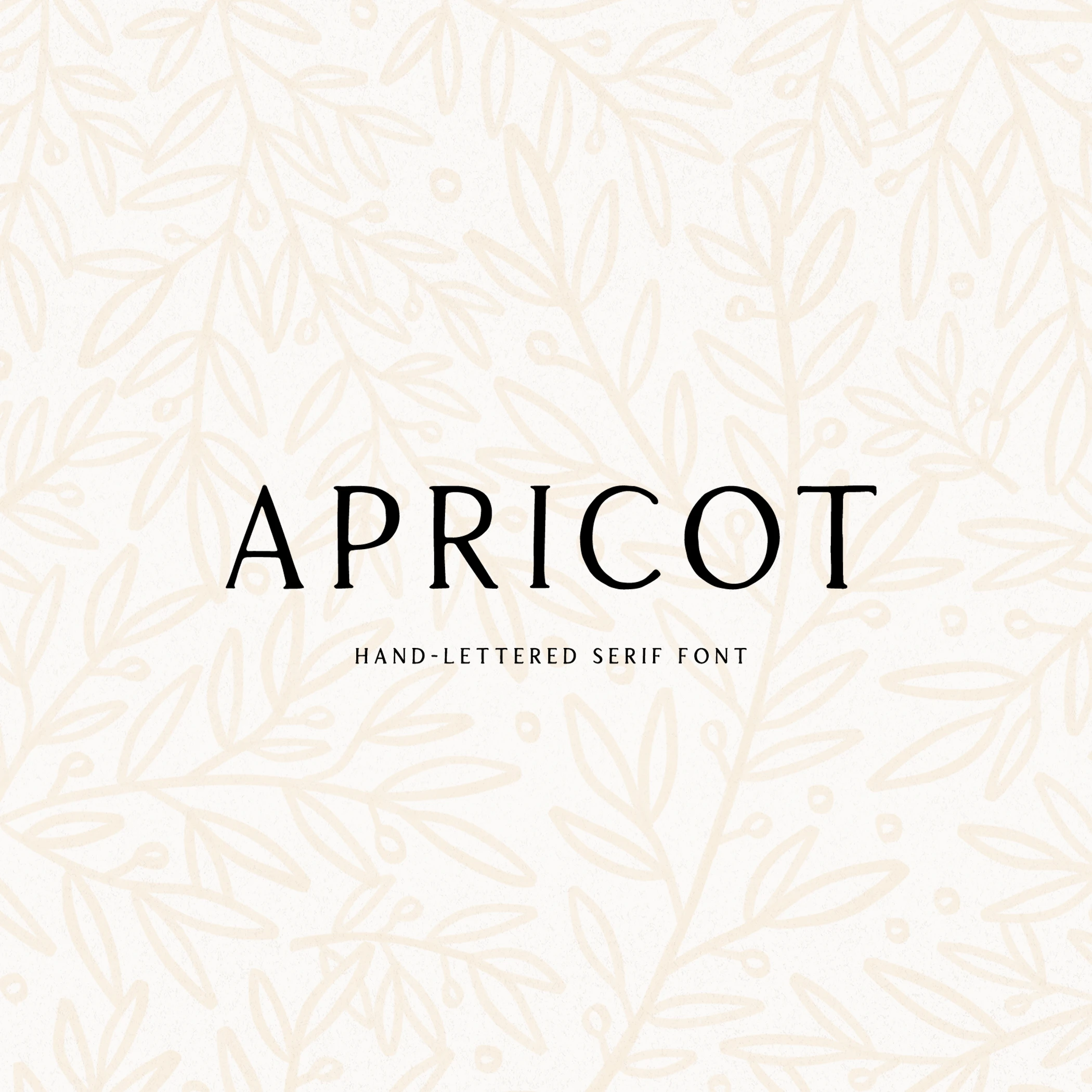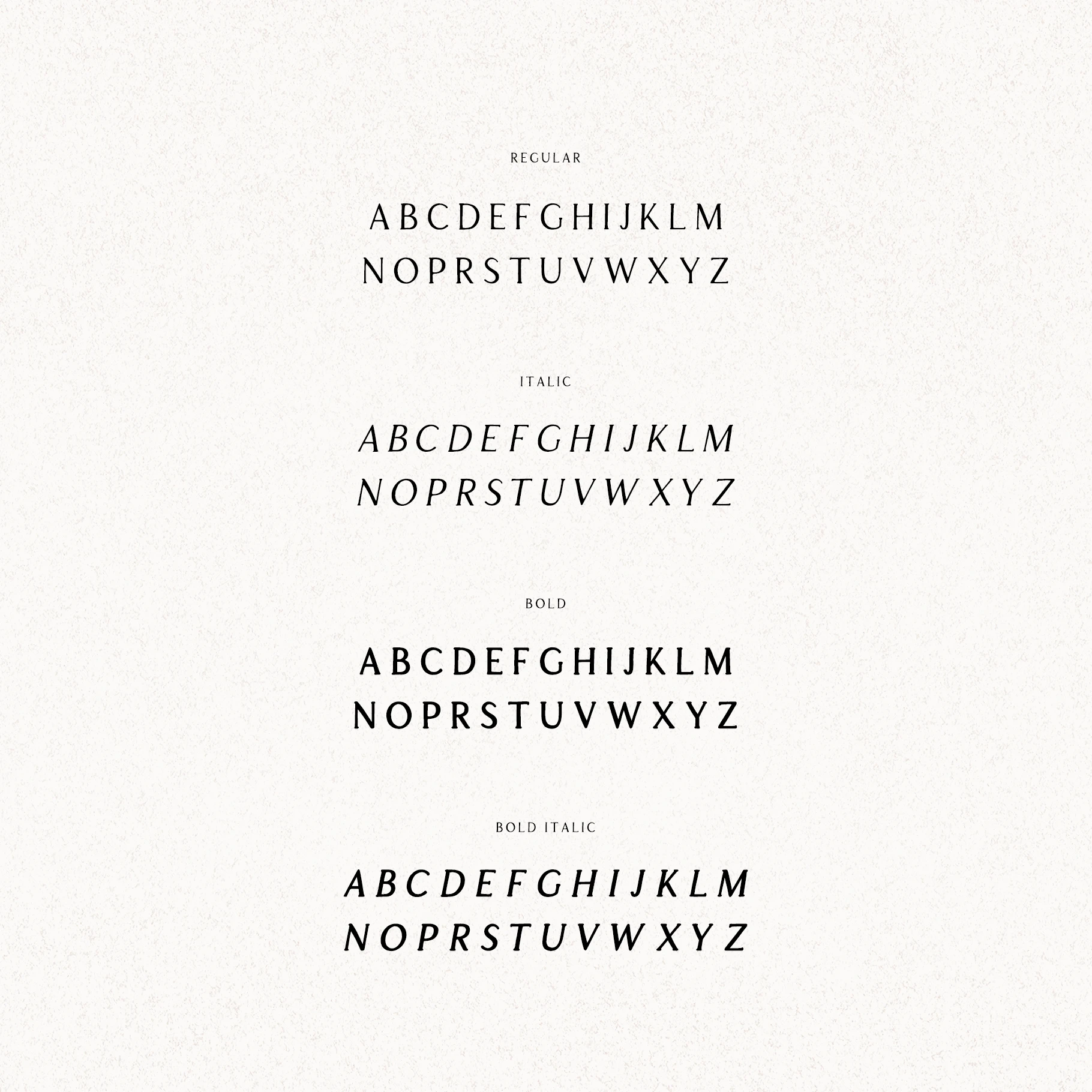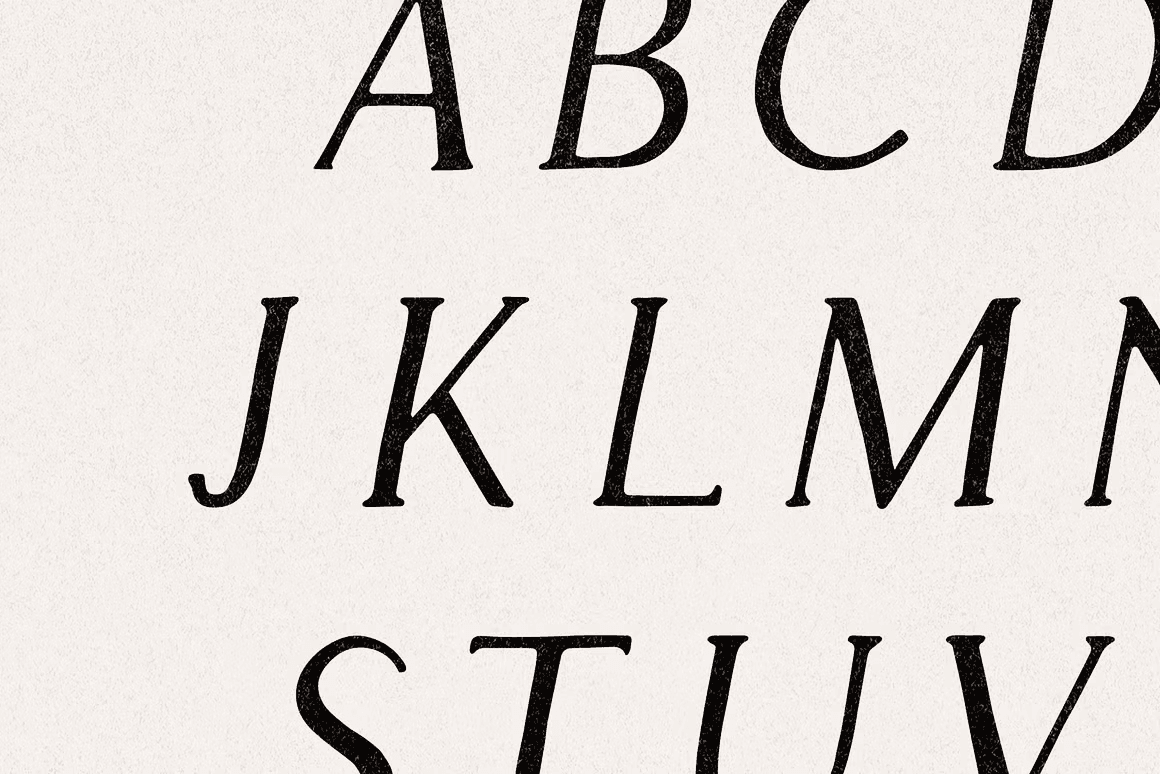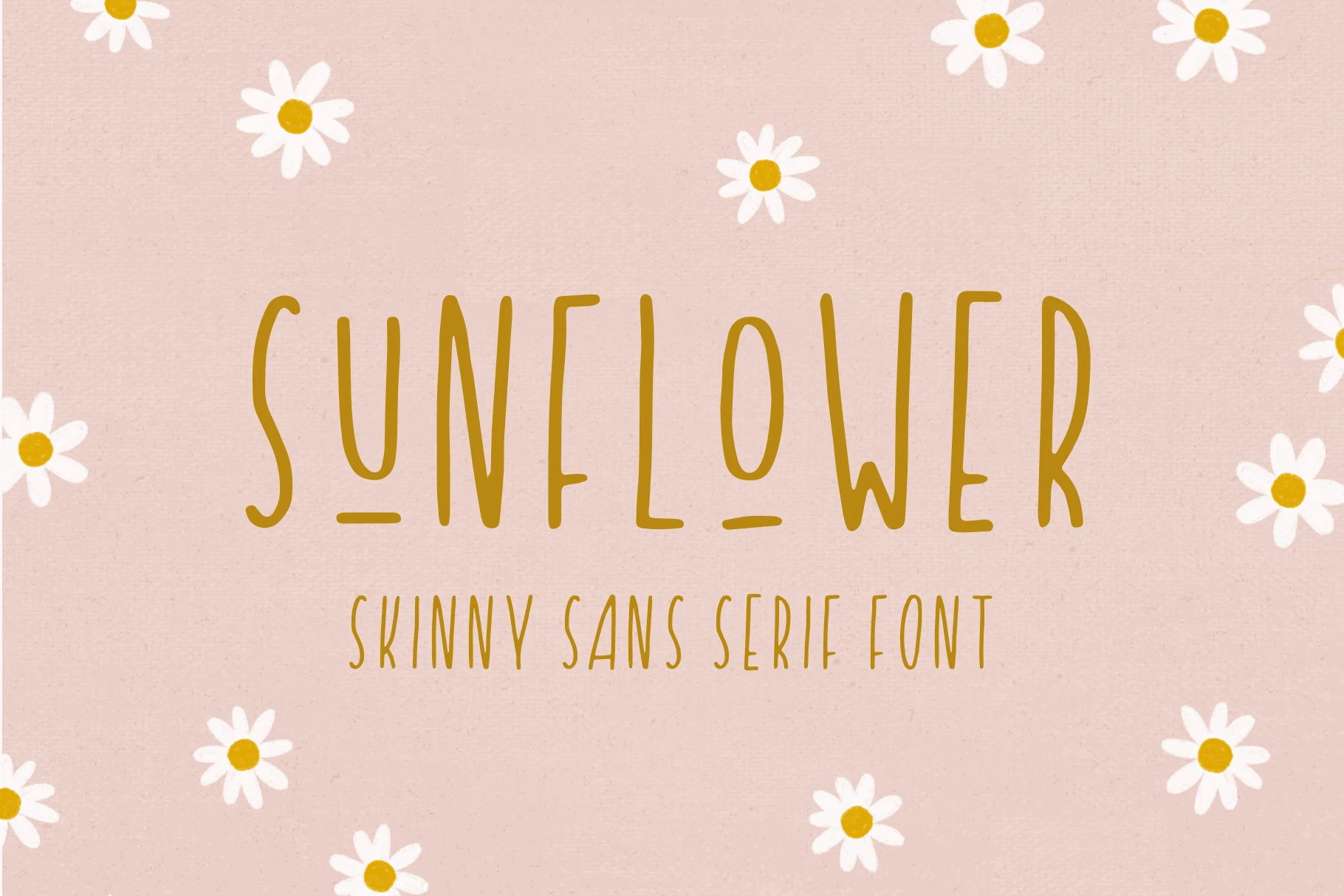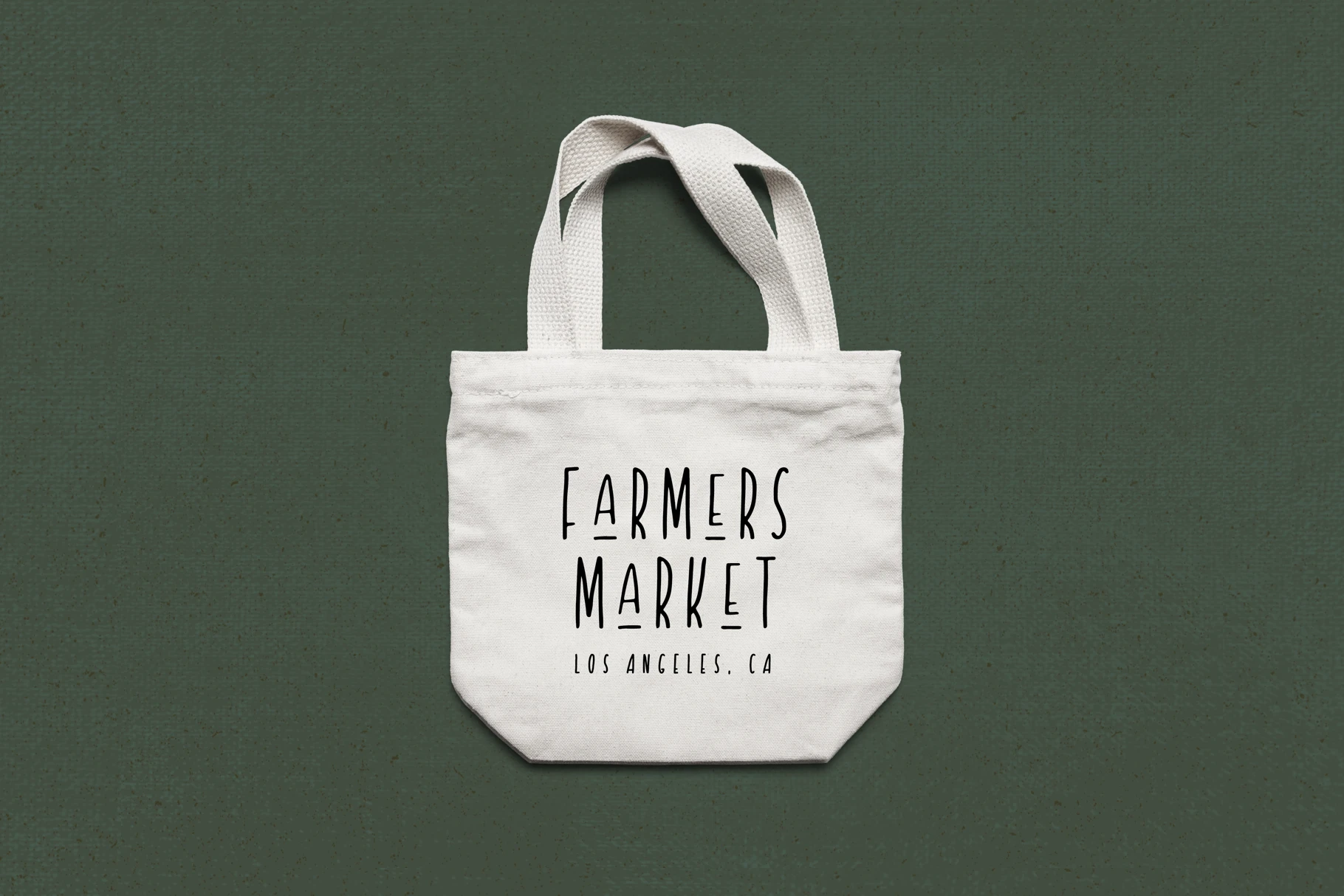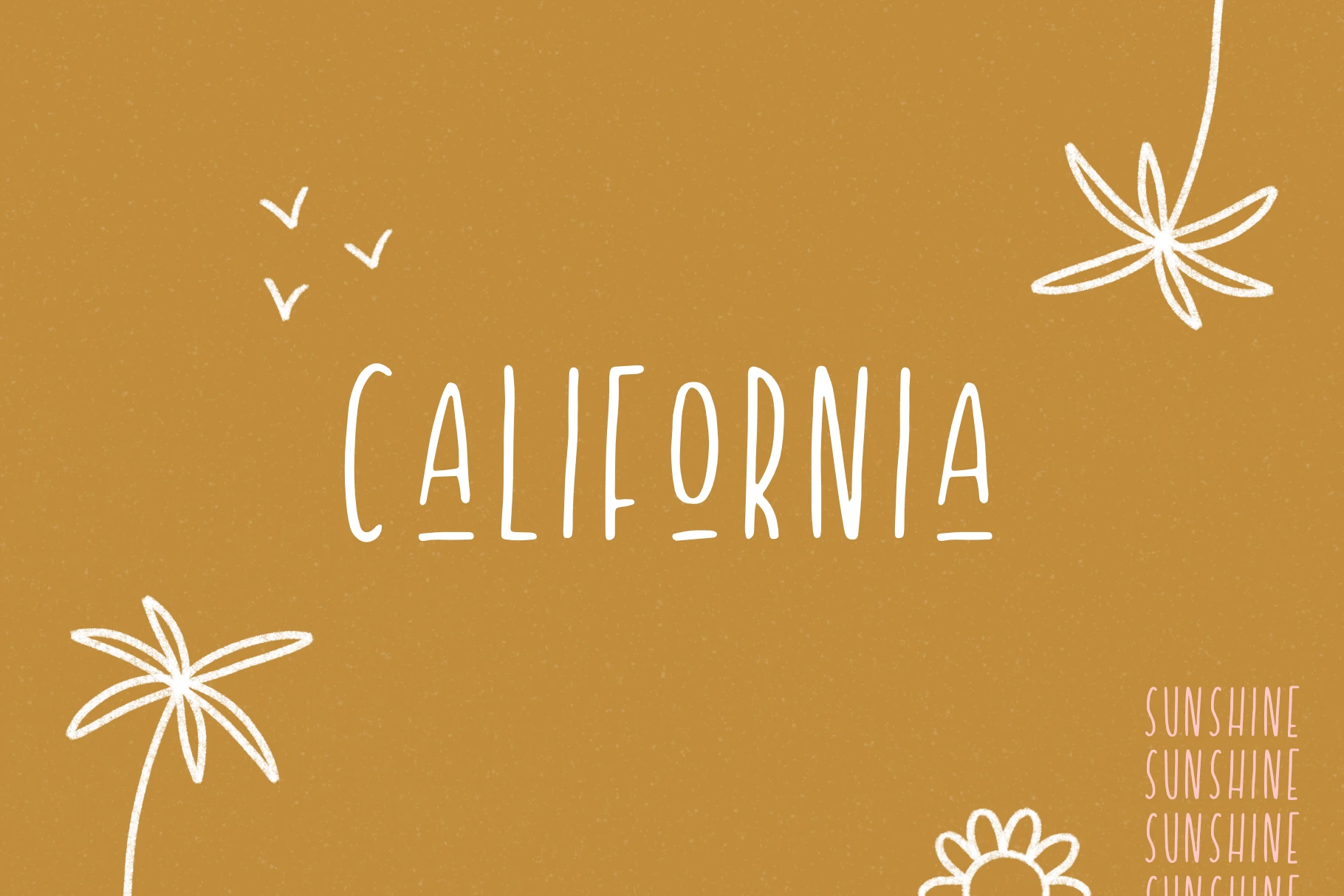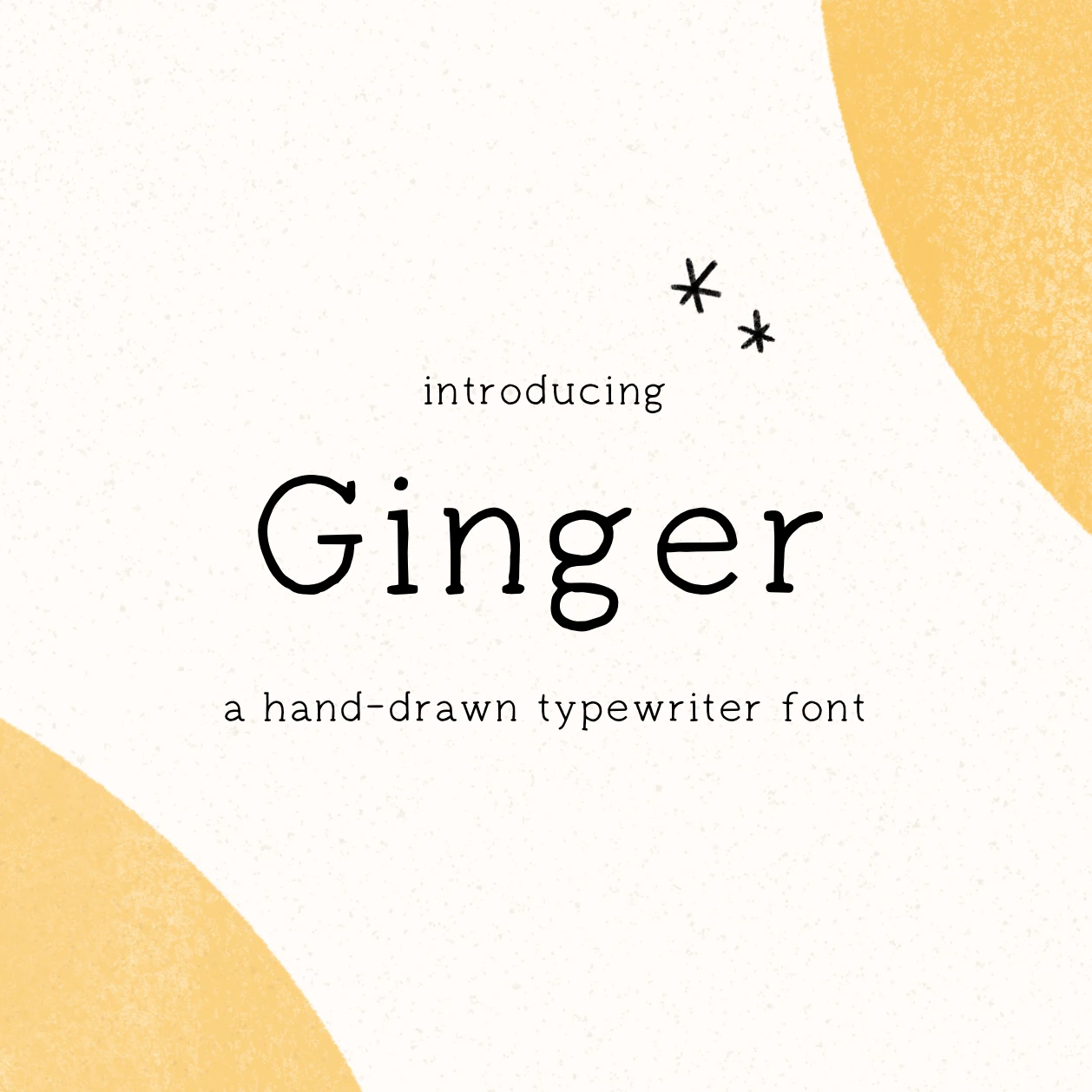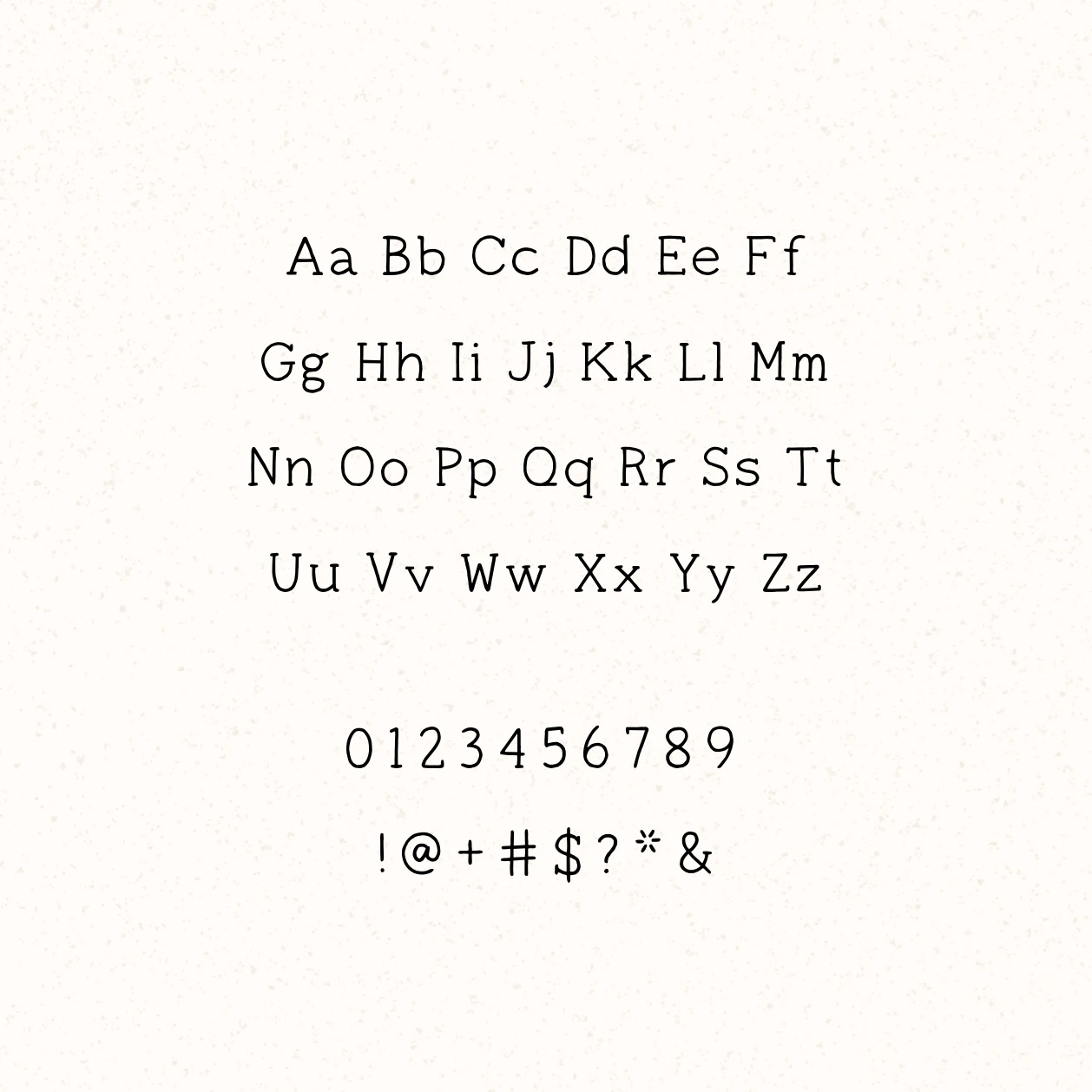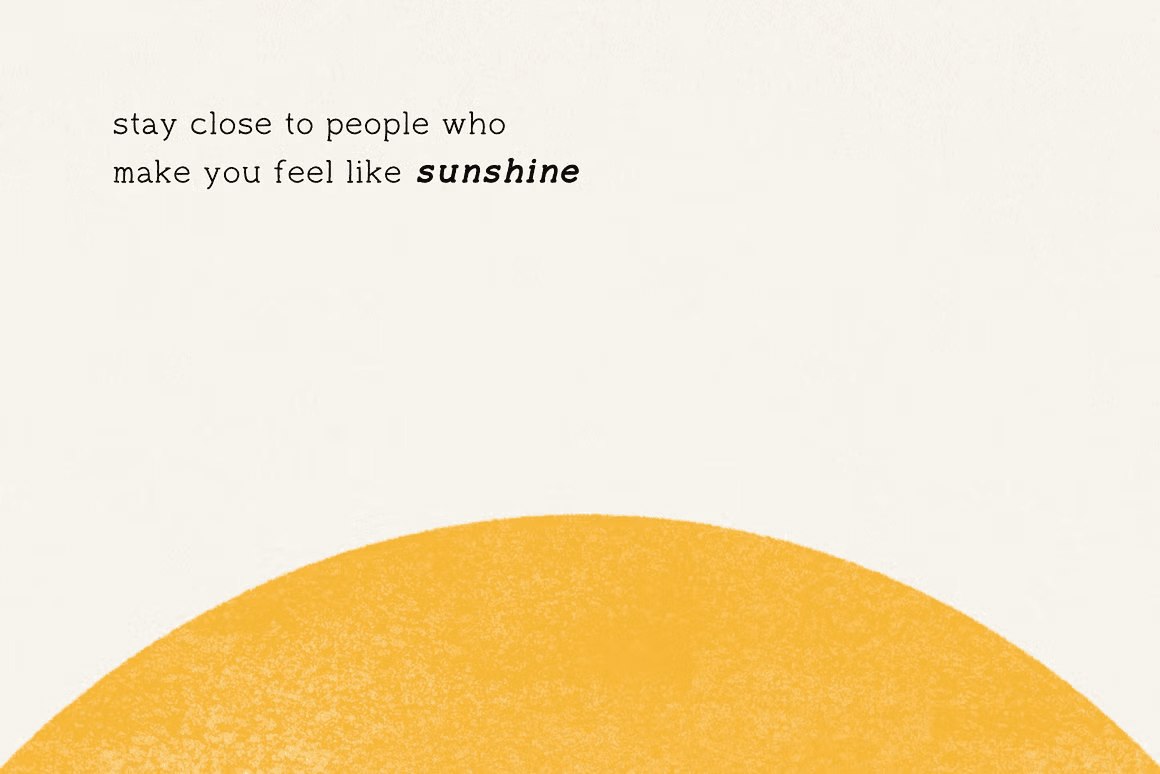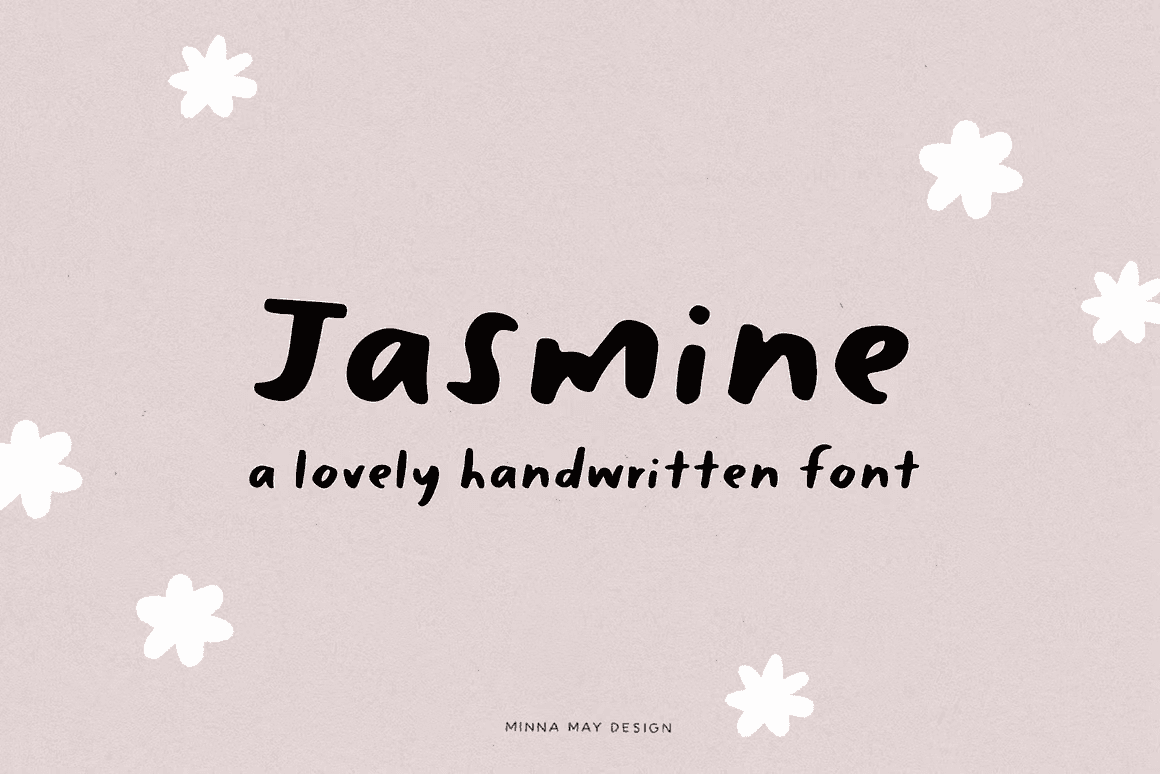
I created a series of hand-lettered fonts available on Creative Market, each designed to feel organic and expressive rather than pixel perfect. I’m drawn to hand‑lettered typefaces because they carry a slightly imperfect, human quality that adds warmth and personality to a design. This subtle irregularity helps the typography feel more approachable and authentic.